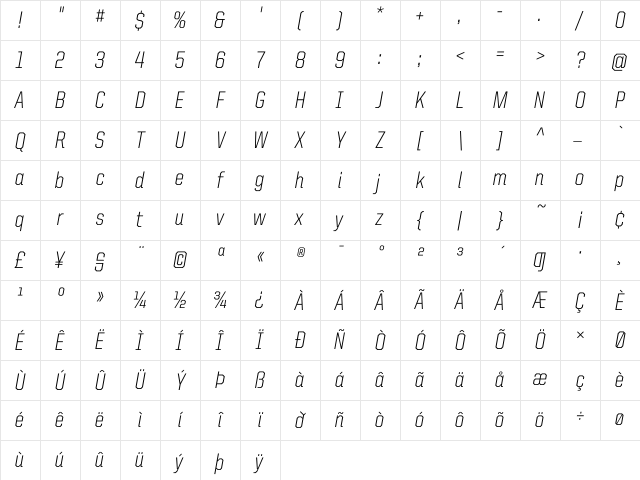
Complete United Italic SemiCond Light glyph index. Displaying only characters natively supported by United Italic SemiCond Light font.
United Italic SemiCond is a composed and adaptable typeface that performs quietly and consistently across a wide range of design contexts. The slanted form adds forward momentum and visual energy. Its slender proportions lend an understated elegance to any composition. Its narrow stance lets it pack a punch even in space-constrained designs.
Pro Tip: Use United Italic SemiCond for emphasis, pull quotes, and subheadings where its slanted energy can add rhythm to the layout.